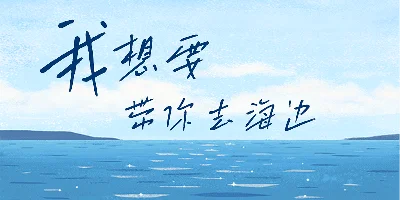
HelloFont ID Sa Shuang Shou Xie Ti Font
HelloFont ID Sa Shuang Shou Xie Ti Font is an elegant and artistic calligraphy-inspired typeface with flowing strokes and a unique design. Its traditional Chinese brush style is perfect for creating sophisticated, culturally rich projects such as invitations, branding, logos, packaging, and artistic designs.
The HelloFont ID Sa Shuang Shou Xie Ti Font offers versatility for both display text and smaller body copy, ensuring excellent readability while maintaining an artistic flair. It integrates seamlessly with design tools like Adobe Illustrator, Photoshop, Figma, and Canva, making it ideal for both print and digital designs.